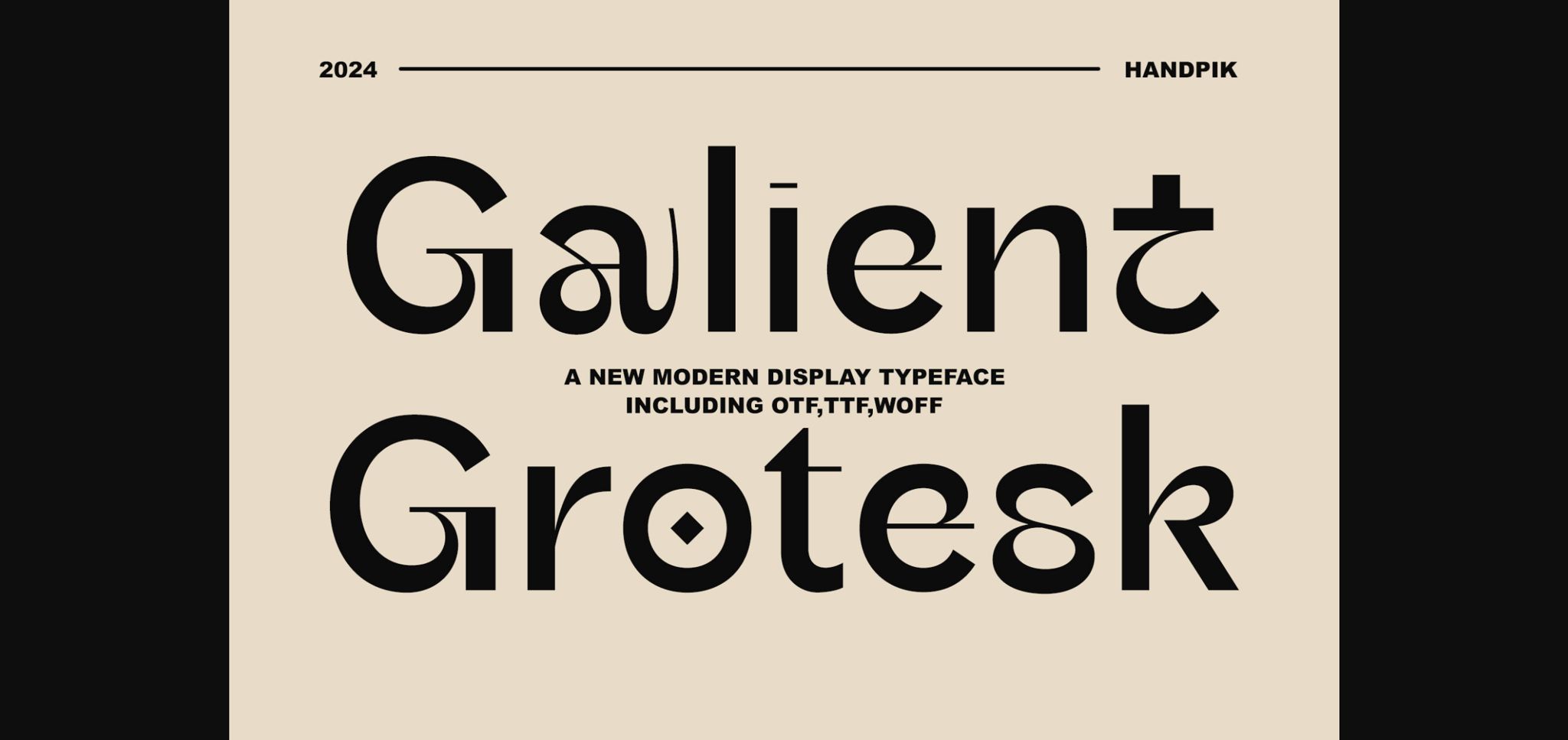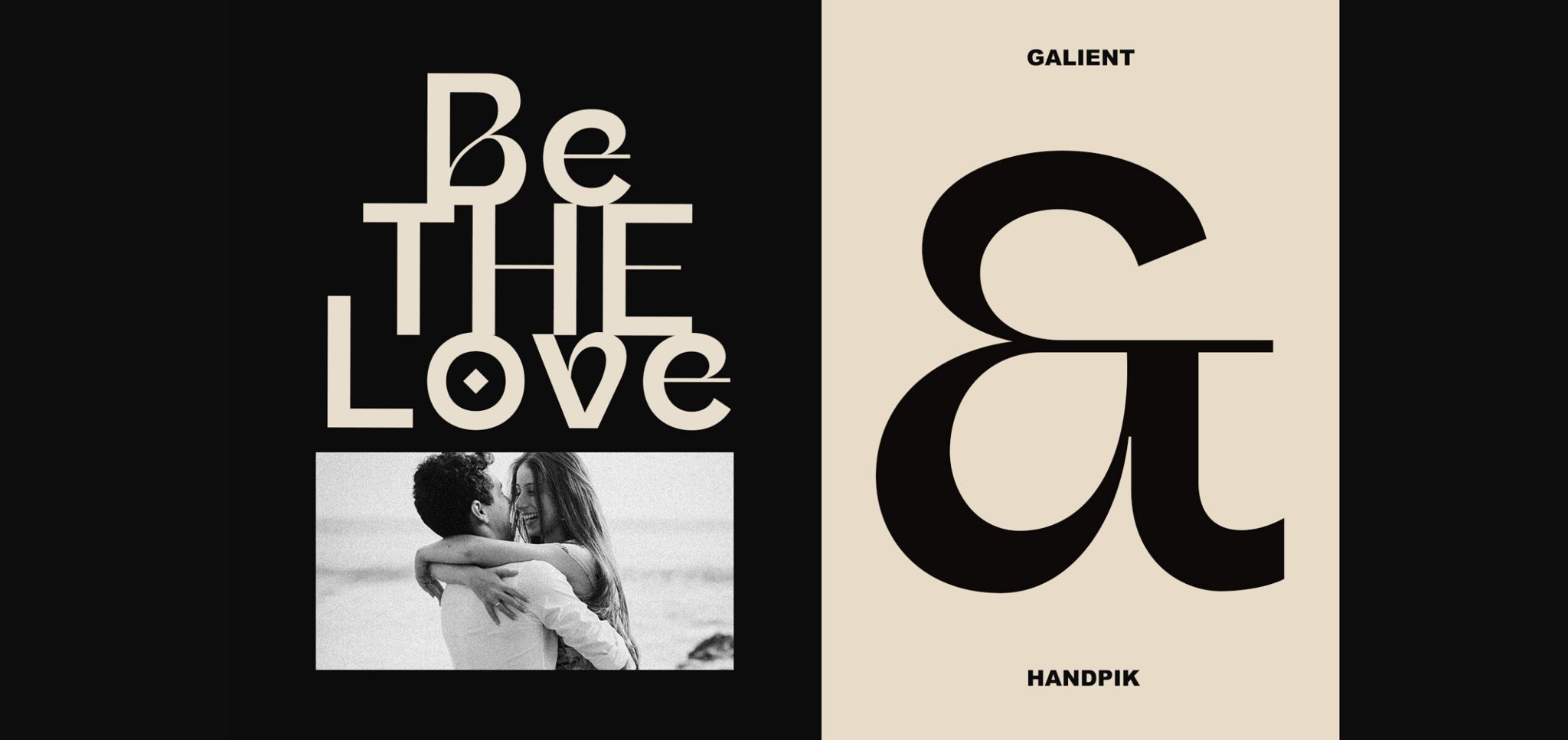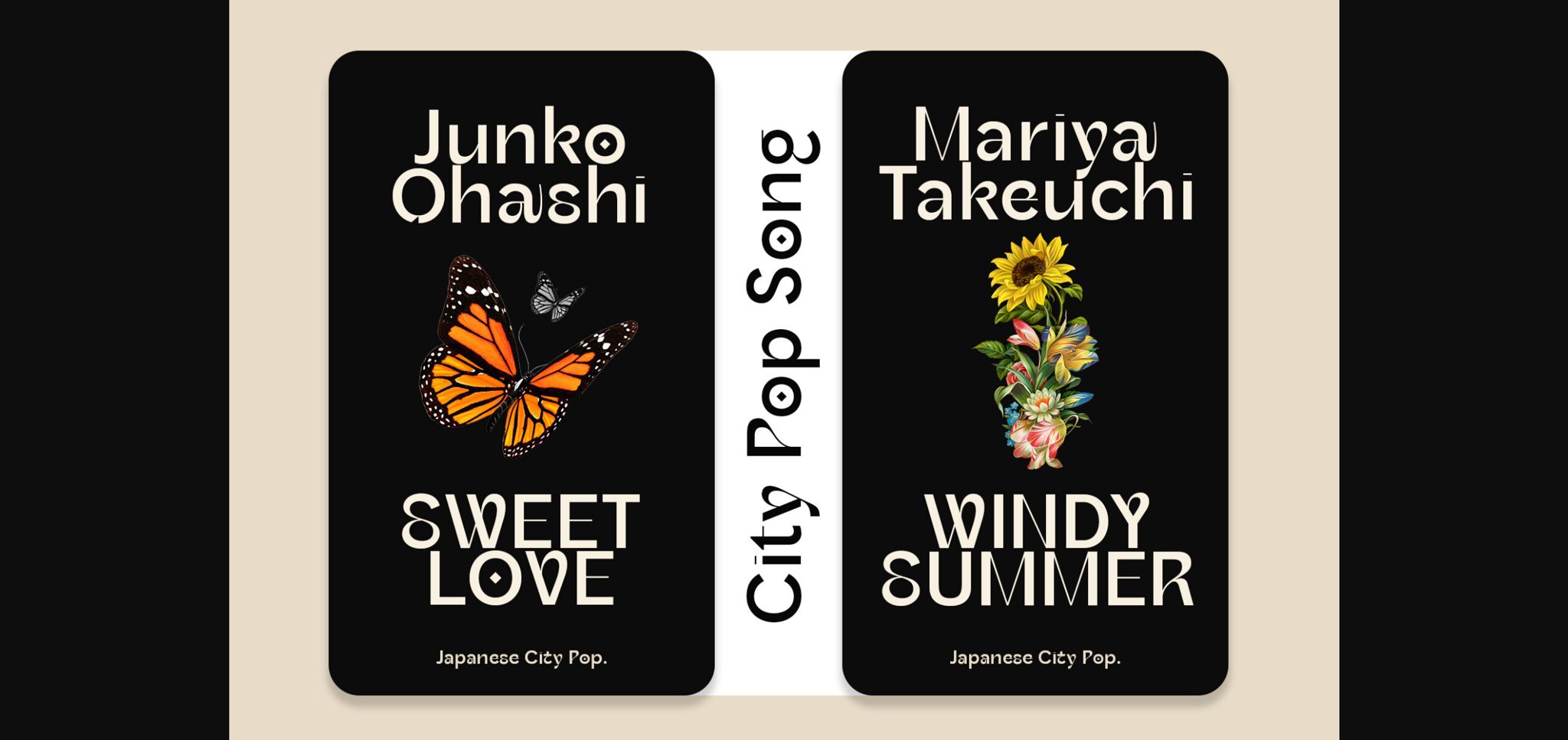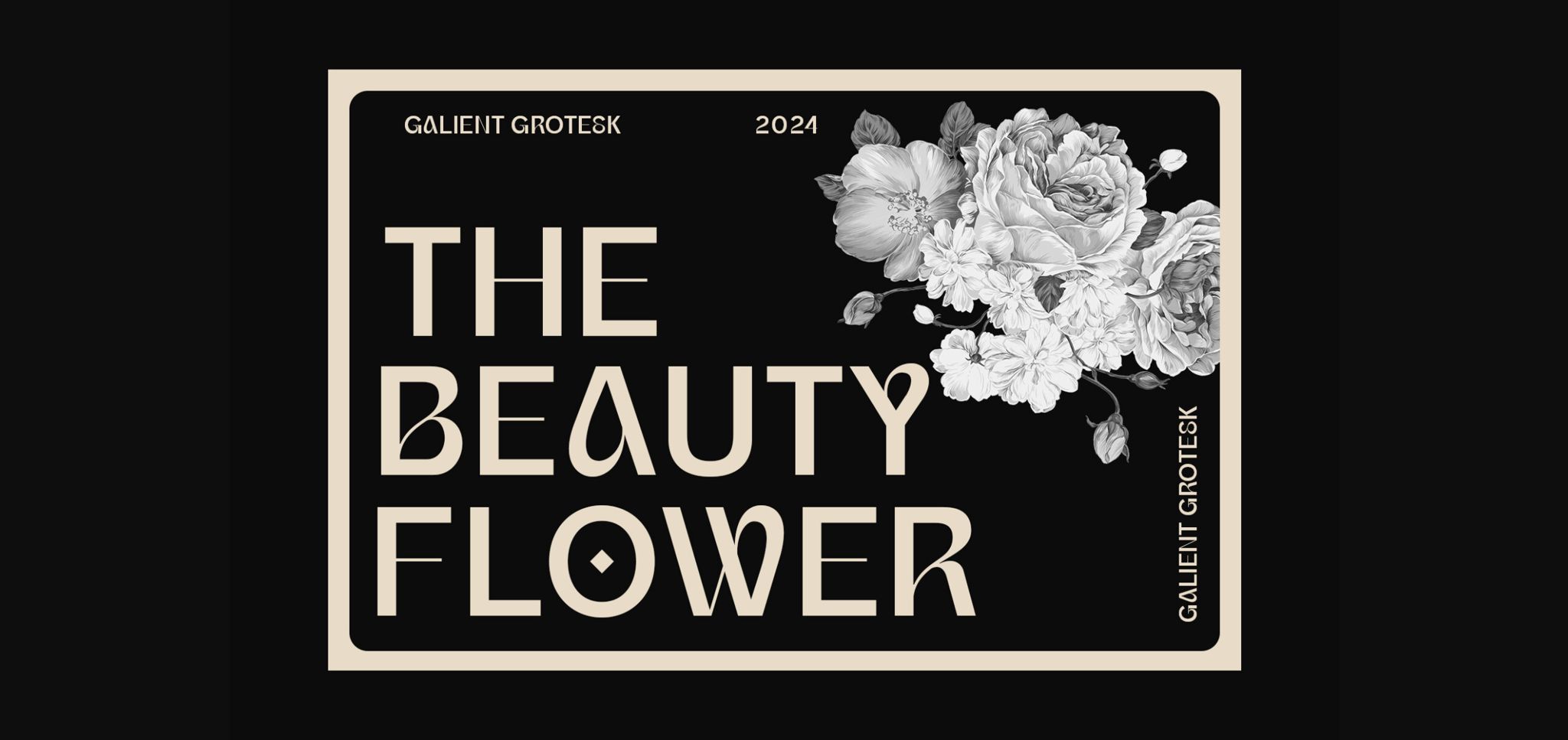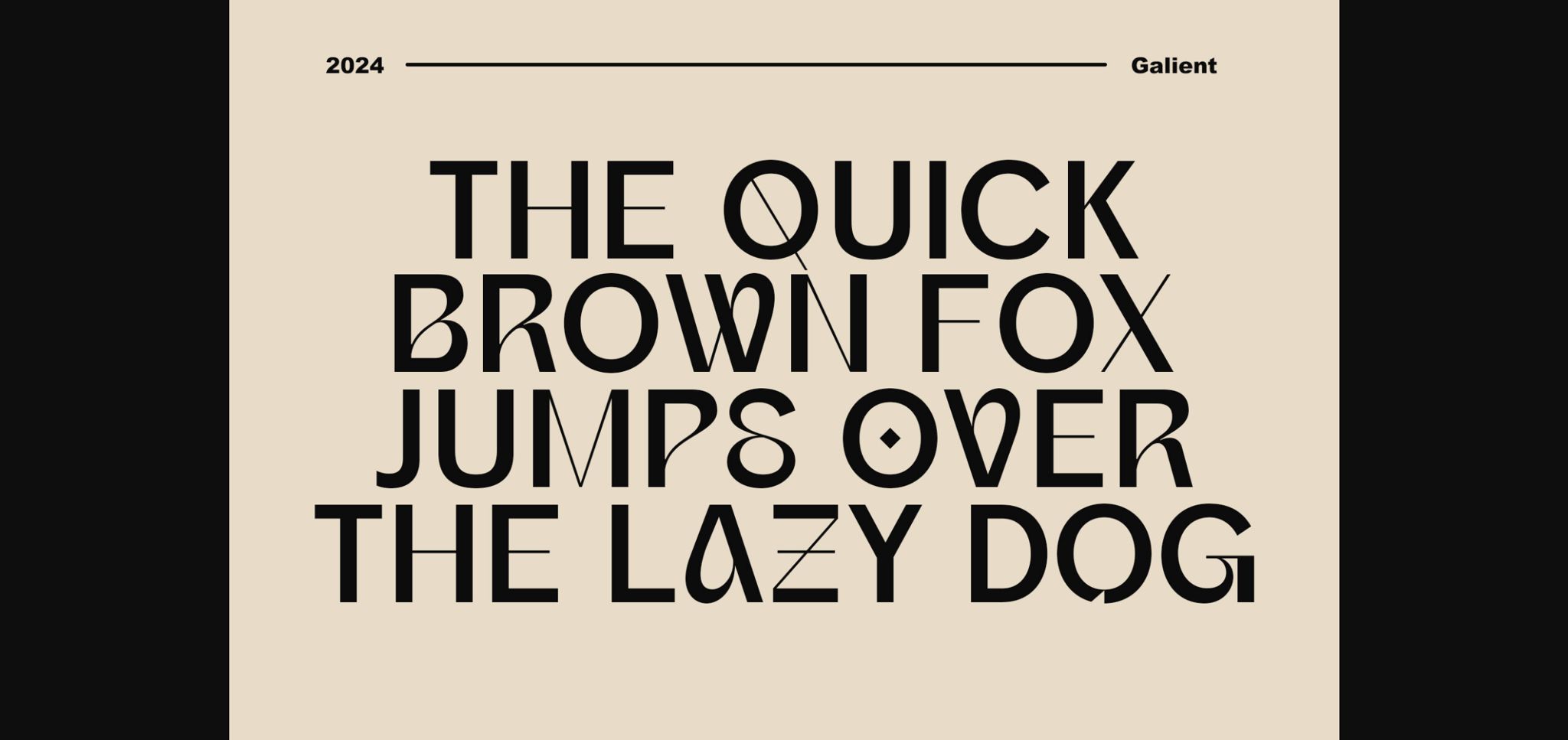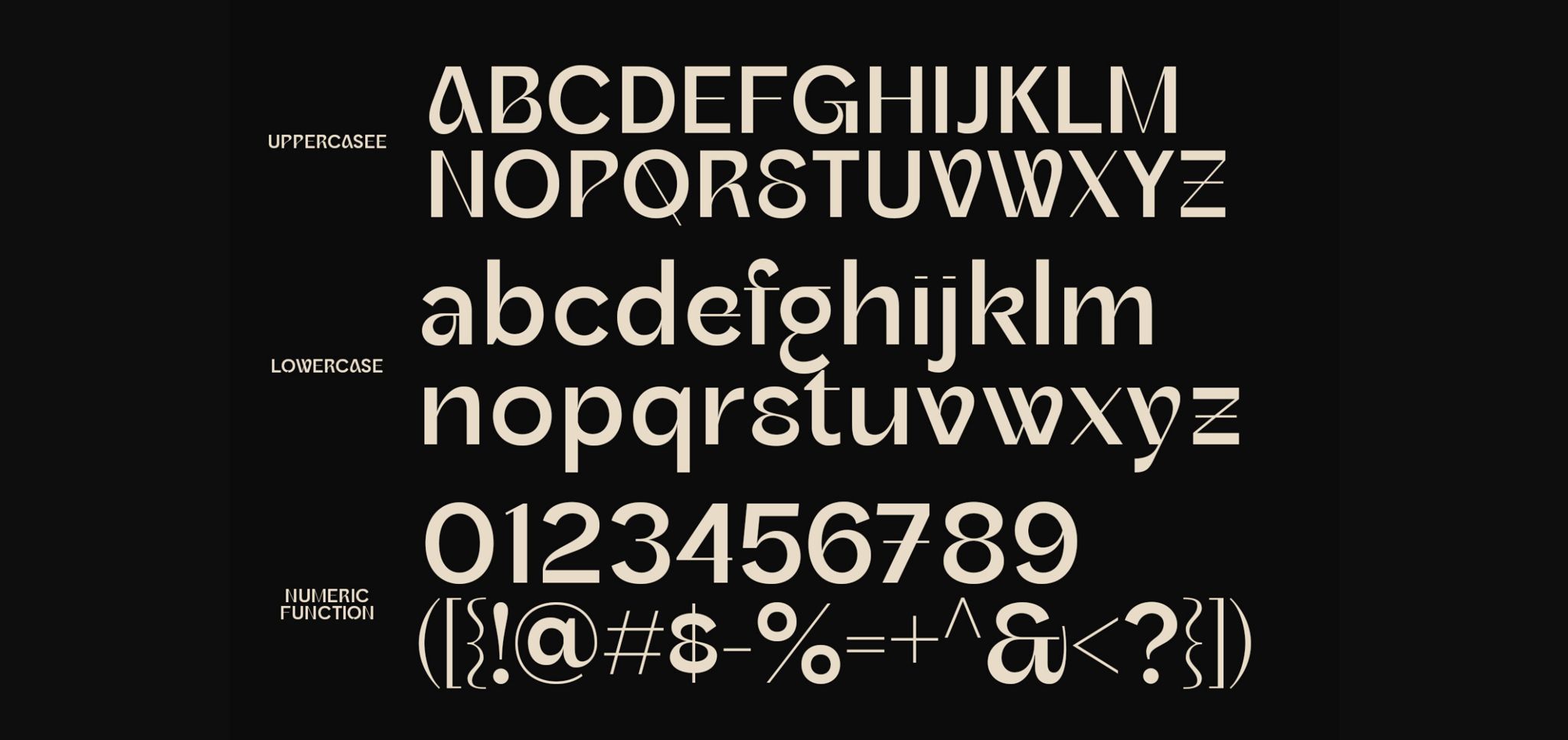
Galient Font
About Galient Font
Galient is a sleek and modern sans-serif font designed for sophistication and clarity. Its clean lines and balanced proportions make it perfect for a wide range of applications, from editorial layouts to branding materials. With its elegant simplicity, Galient brings a touch of contemporary style to any design project.